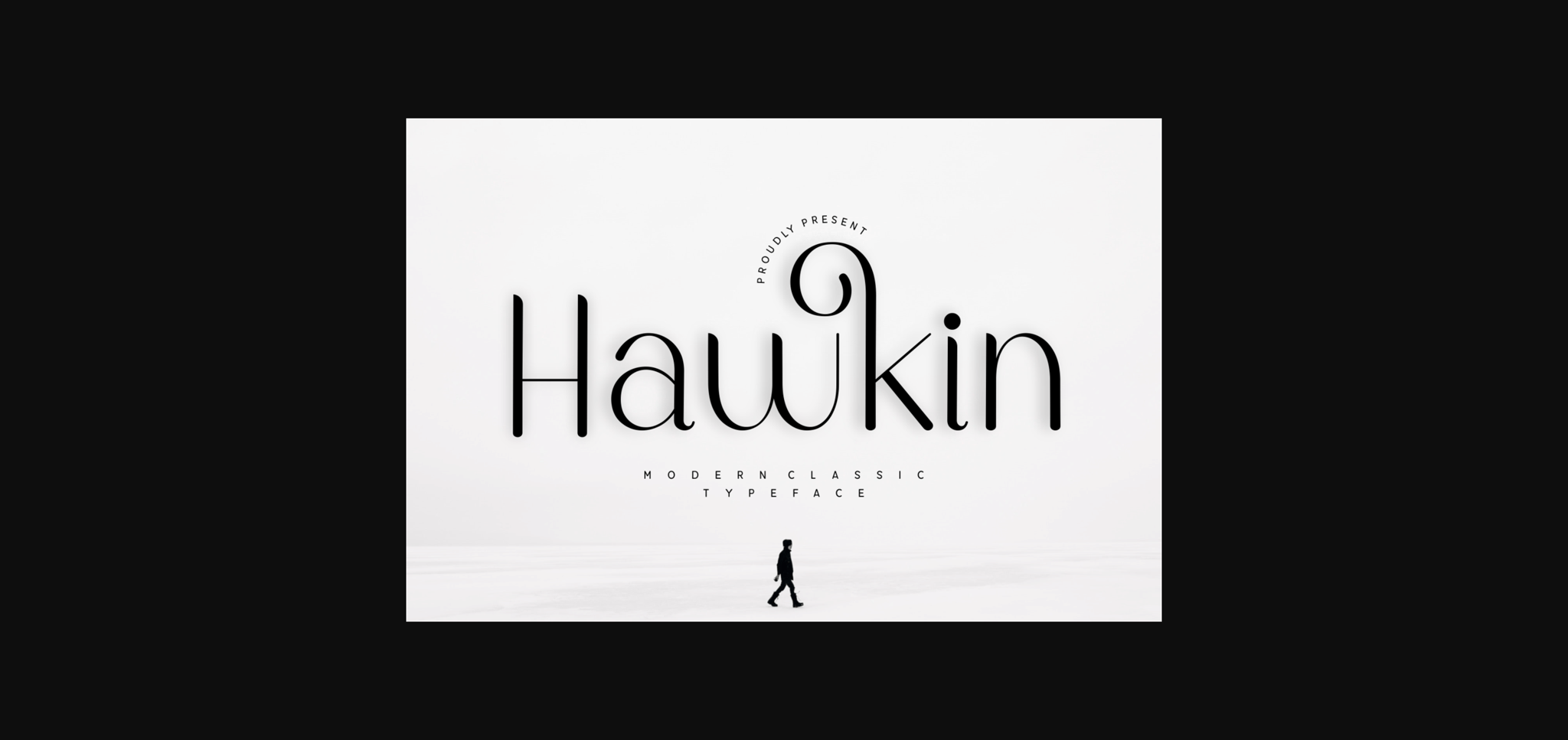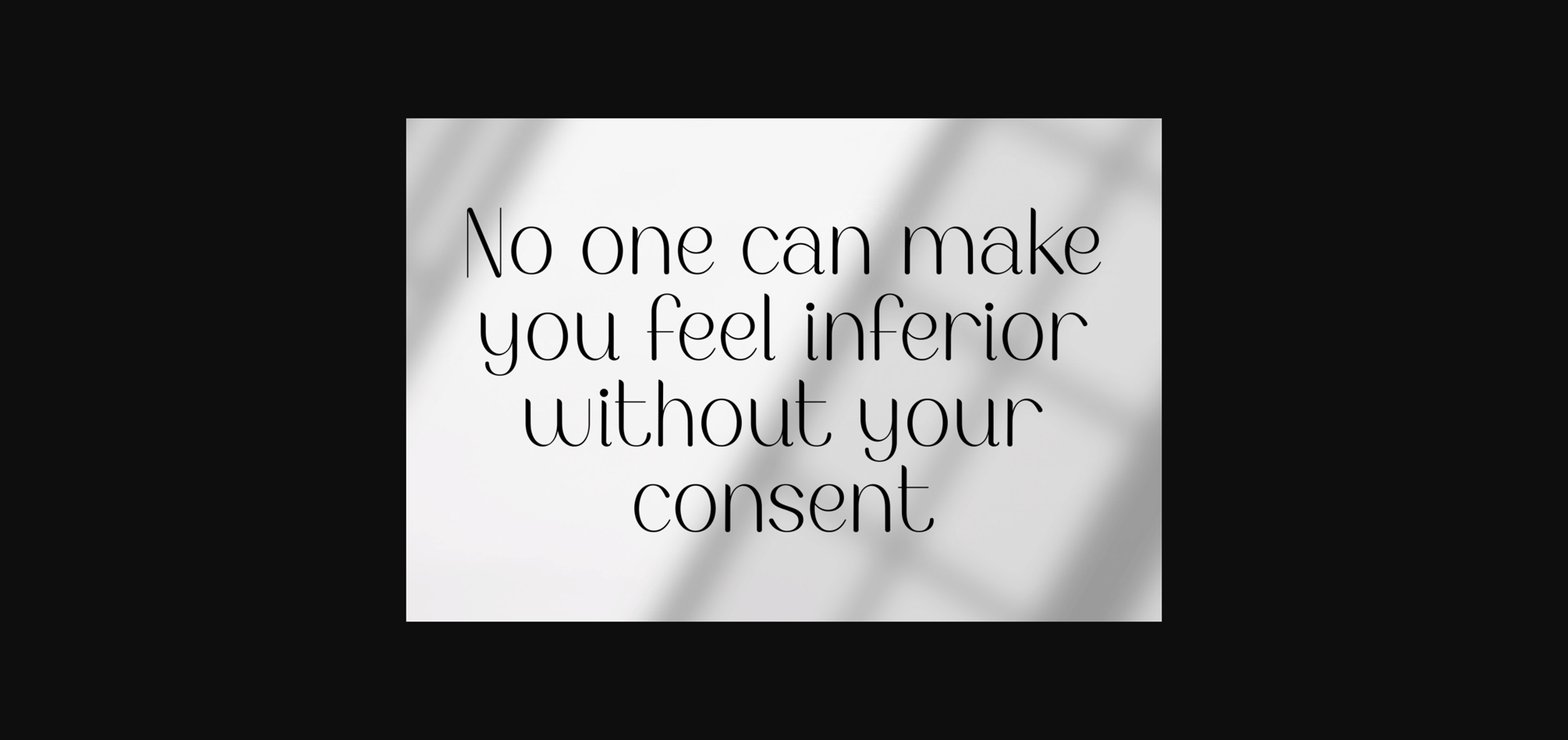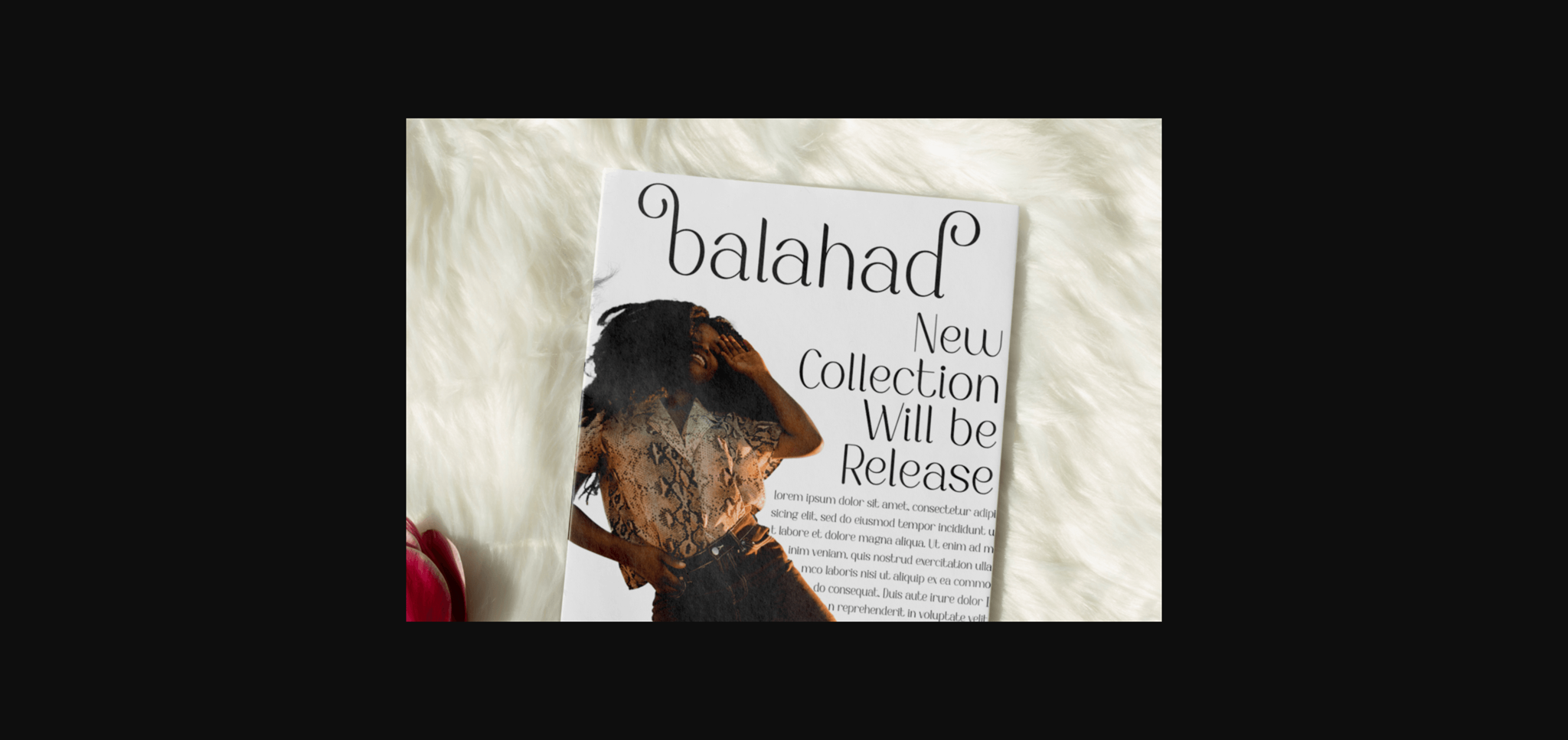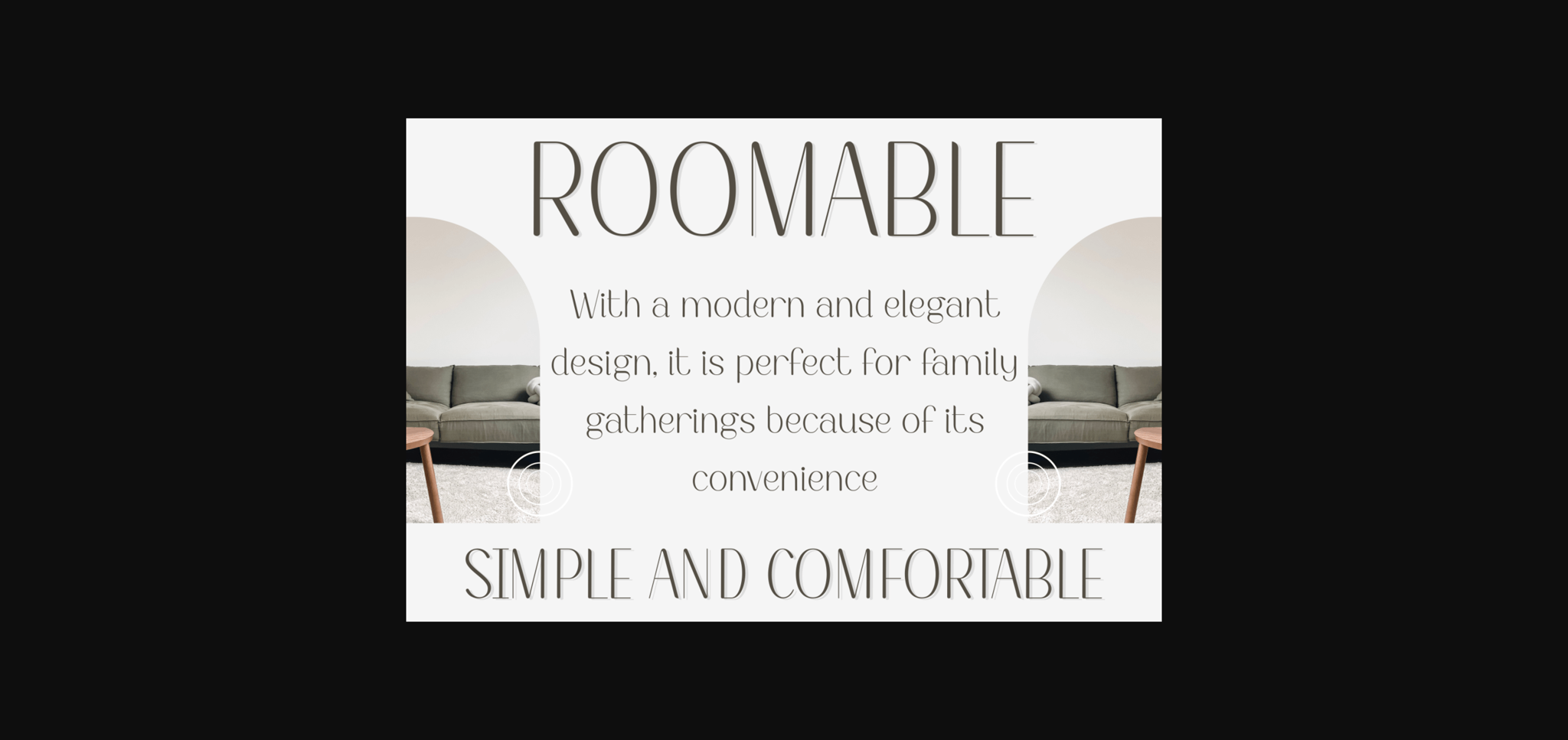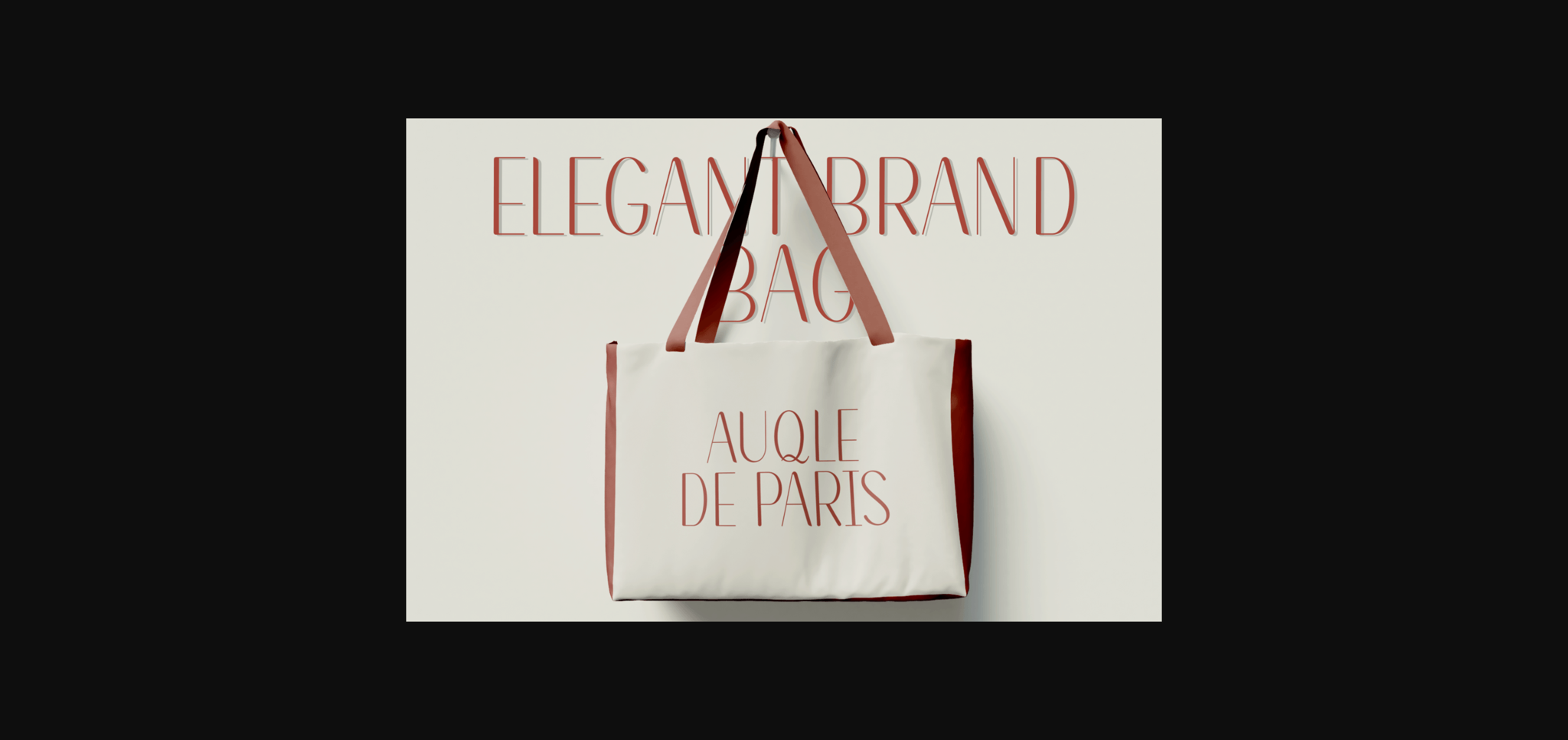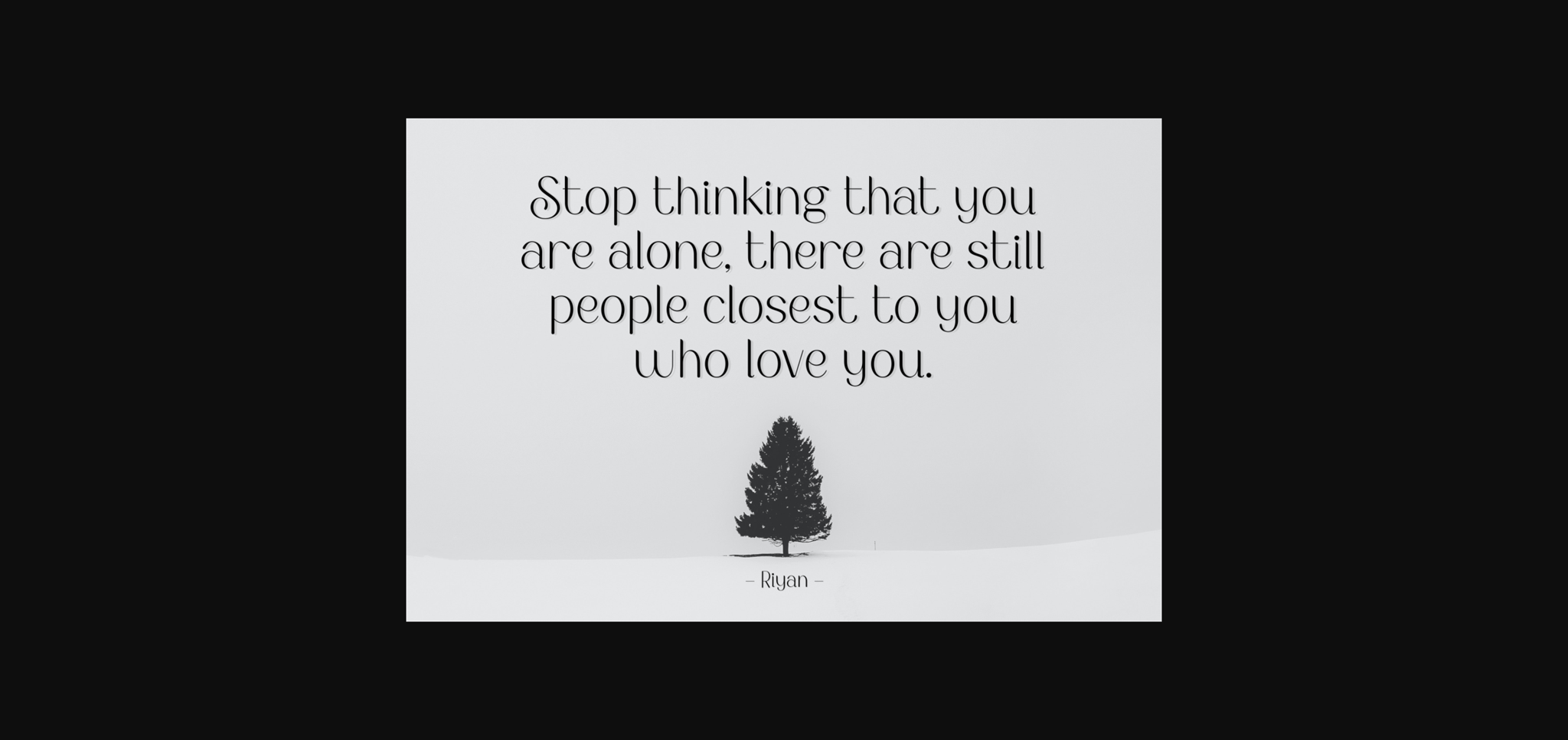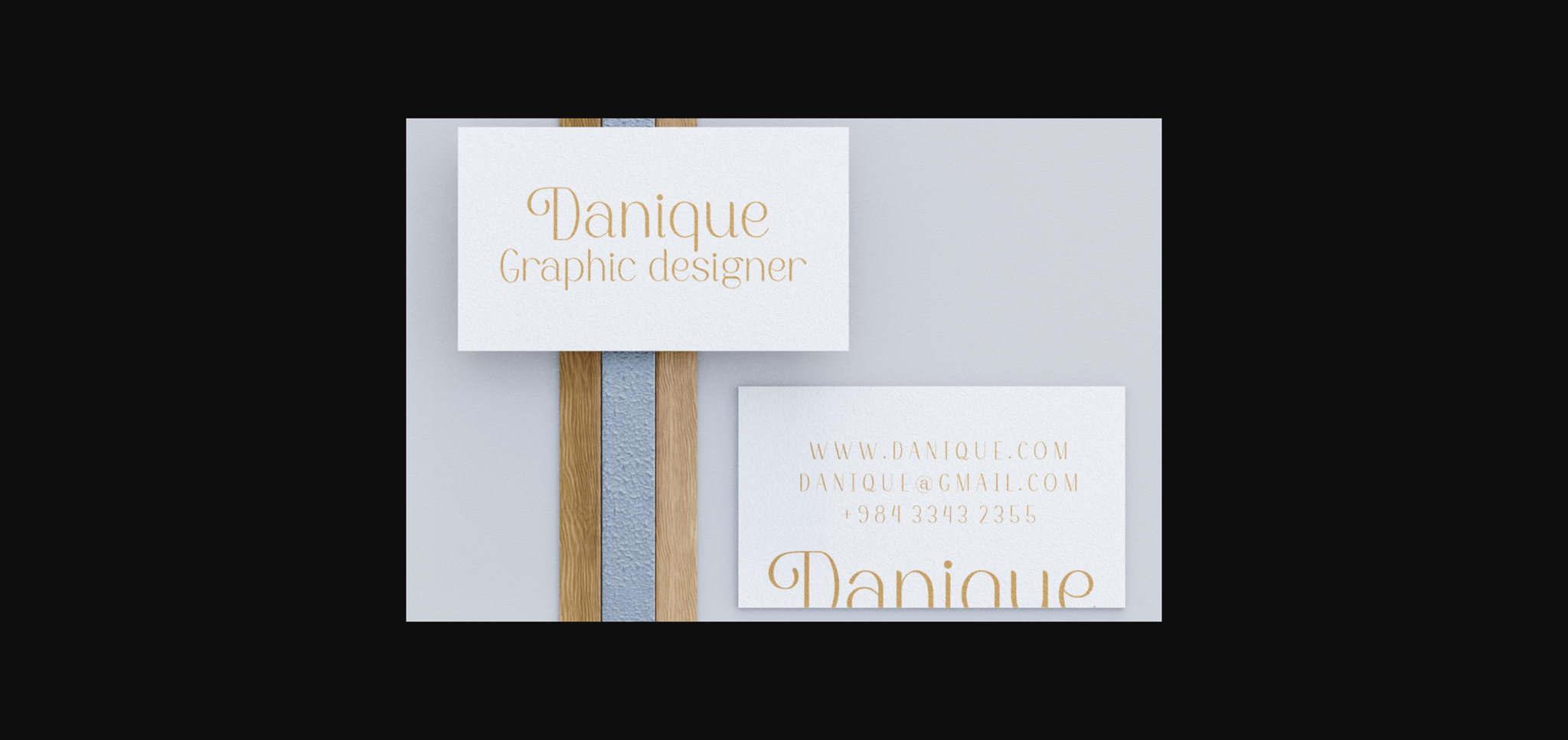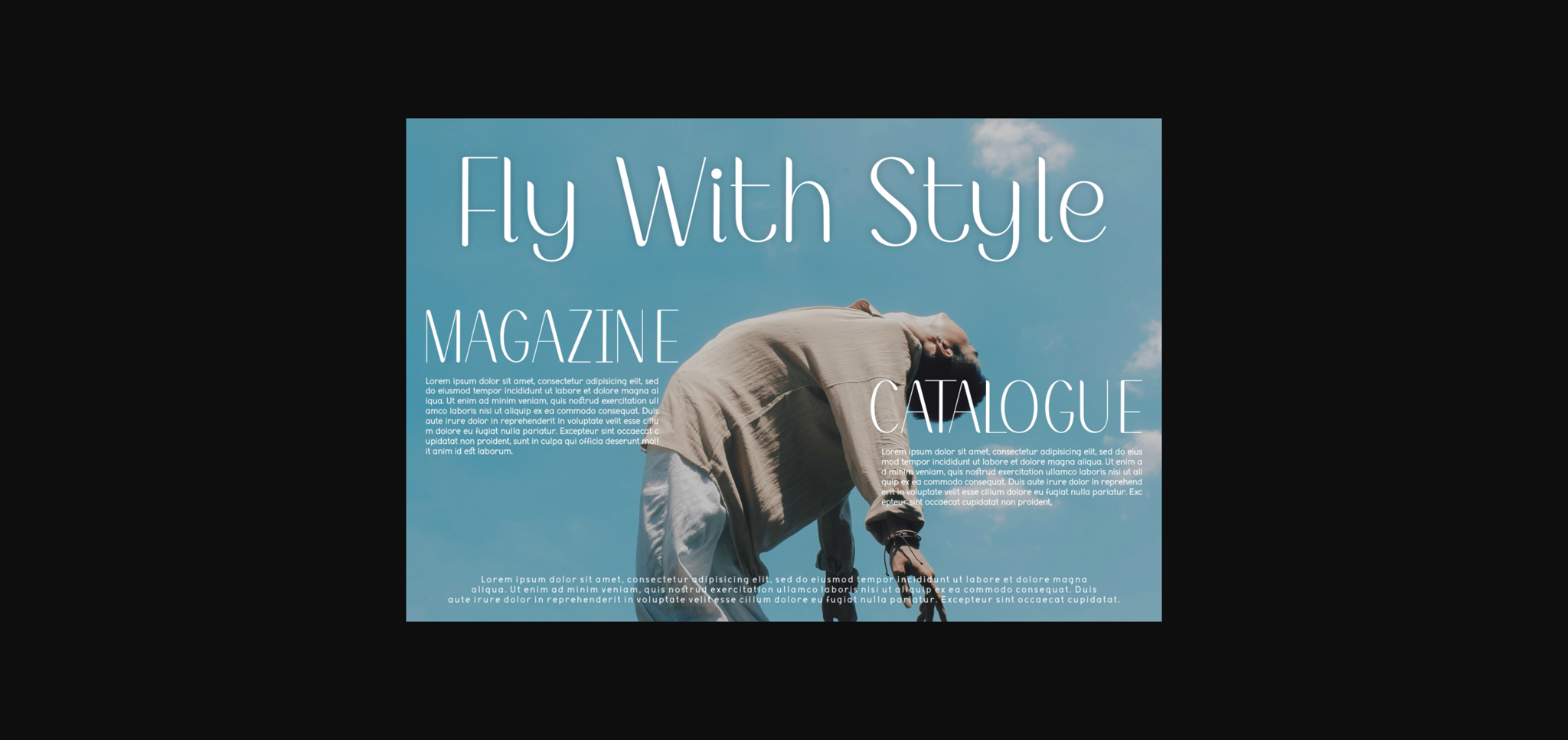
Hawkin Font
Hawkin is a beautiful and elegant sans serif font. Add a stylish note to your typography designs with this modern typeface! It is ideal for fashion themes, web graphics, branding projects, product labels, and many more.
This font is PUA encoded, so you can easily access all the glyphs and swashes!